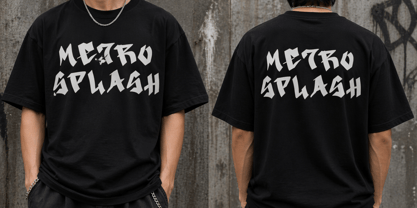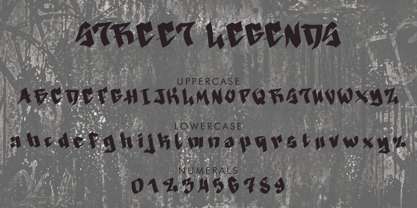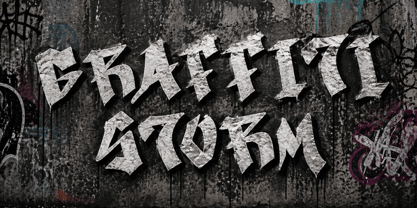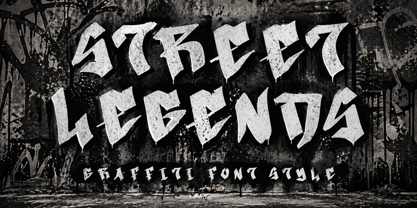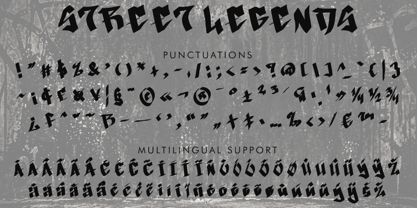
Street Legends
The Street Legends Font Family was designed by Isroni Yoga Prasetya and published by Yoga Letter. Street Legends contains 1 styles. More about this family
“Street Legends” is a unique and modern graffiti font. It features uppercase and lowercase letters, numbers, punctuation, and multilingual support. It’s perfect for tshirts, Christmas, winter, spring, summer, teacher, back to school, autumn, graffiti, urban fonts, street fonts, logos, stickers, posters, prints, banners, branding, summer logos, tattoos, movie titles, and more.